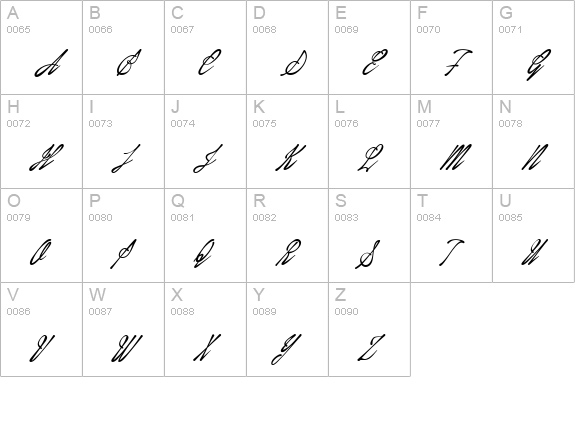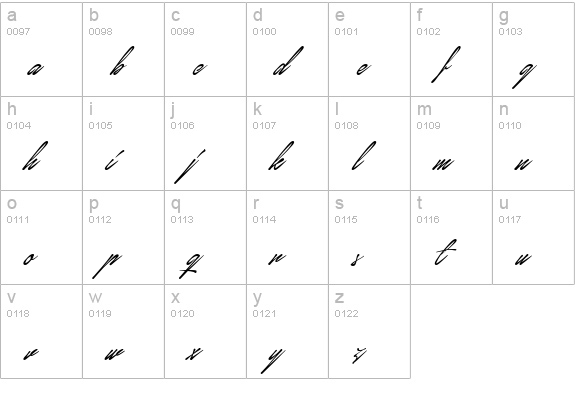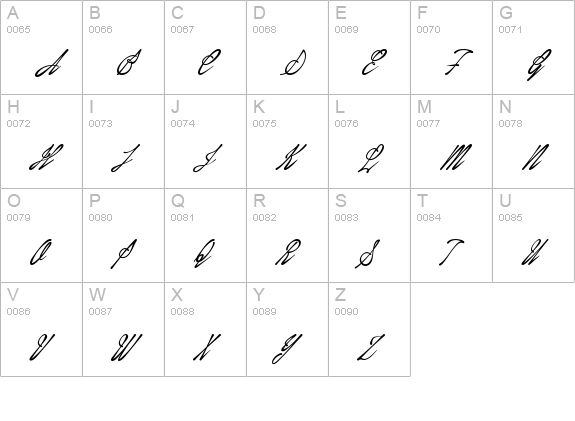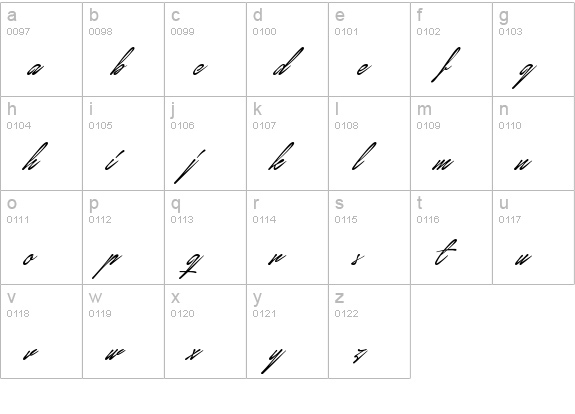
January Script Personal Use Font Details
Introducing January Script Personal Use, a beautifully crafted font that exudes elegance and charm. This typeface is perfect for adding a touch of sophistication to any project or design, whether it be invitations, logos, or branding materials. With its graceful and fluid letterforms, January Script Personal Use captures the essence of handwritten calligraphy, making it ideal for adding a personal and unique touch to your creations. Each character is meticulously designed to flow seamlessly, creating a harmonious and visually stunning result. What sets January Script Personal Use apart is not only its stunning aesthetics but also its accessibility. This font is freely available to download at FontsMarket.com, allowing you to bring your ideas to life without any financial constraints. Embrace the beauty of January Script Personal Use and elevate your designs to new heights. Let your creativity flourish as you explore the endless possibilities this font has to offer. Download it today and unlock the power of elegant typography at your fingertips.